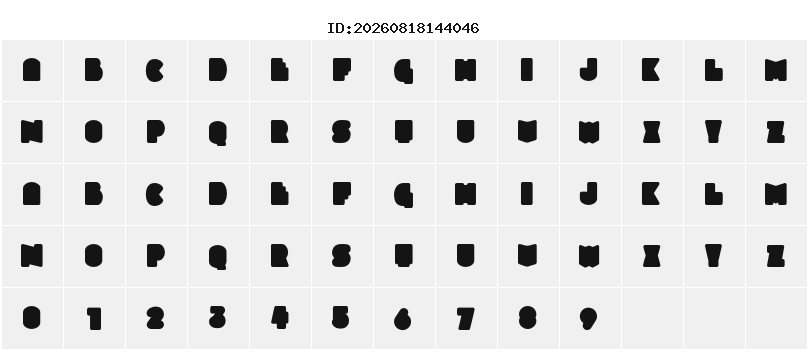
Slukoni.otf
Slukoni Preview
• Font Name: Slukoni
• Designer: Marko Jovanovac
About Slukoni.otf
Slukoni.otf is a modern, elegant sans-serif font designed for ultimate readability and visual harmony. Perfect for branding, headlines, web design, and print materials.